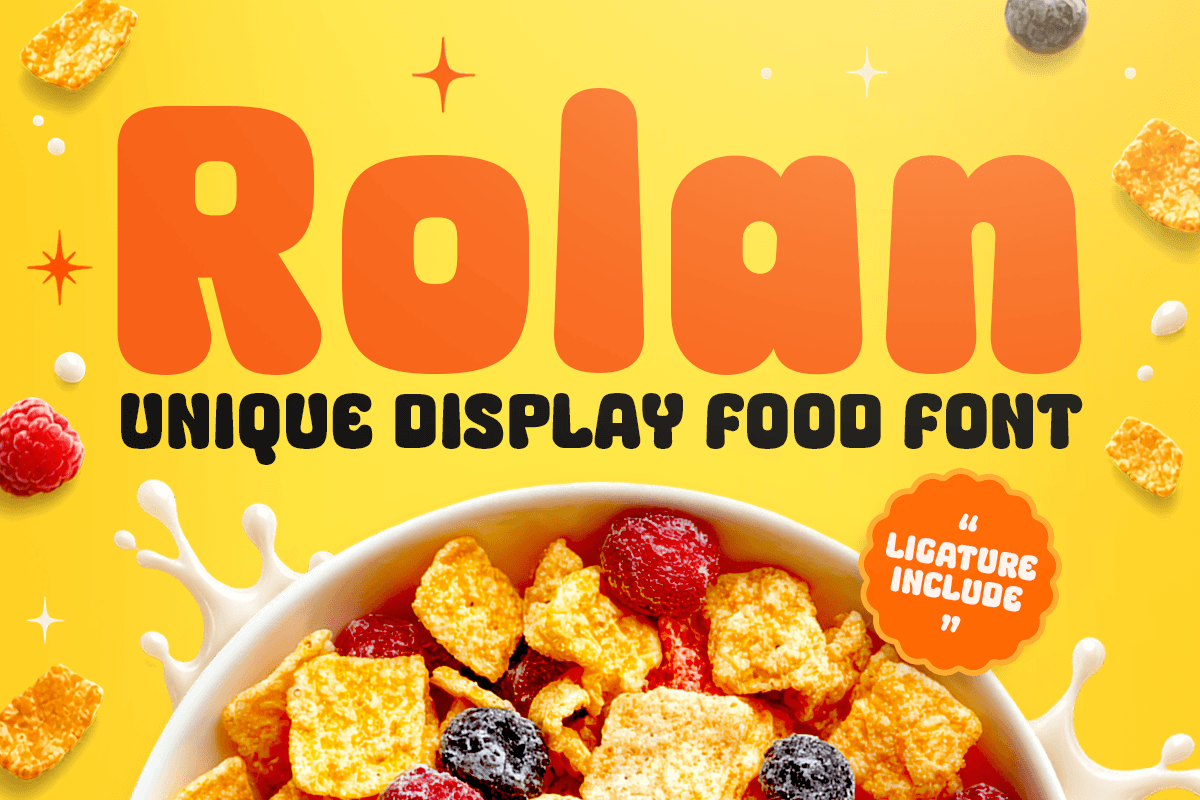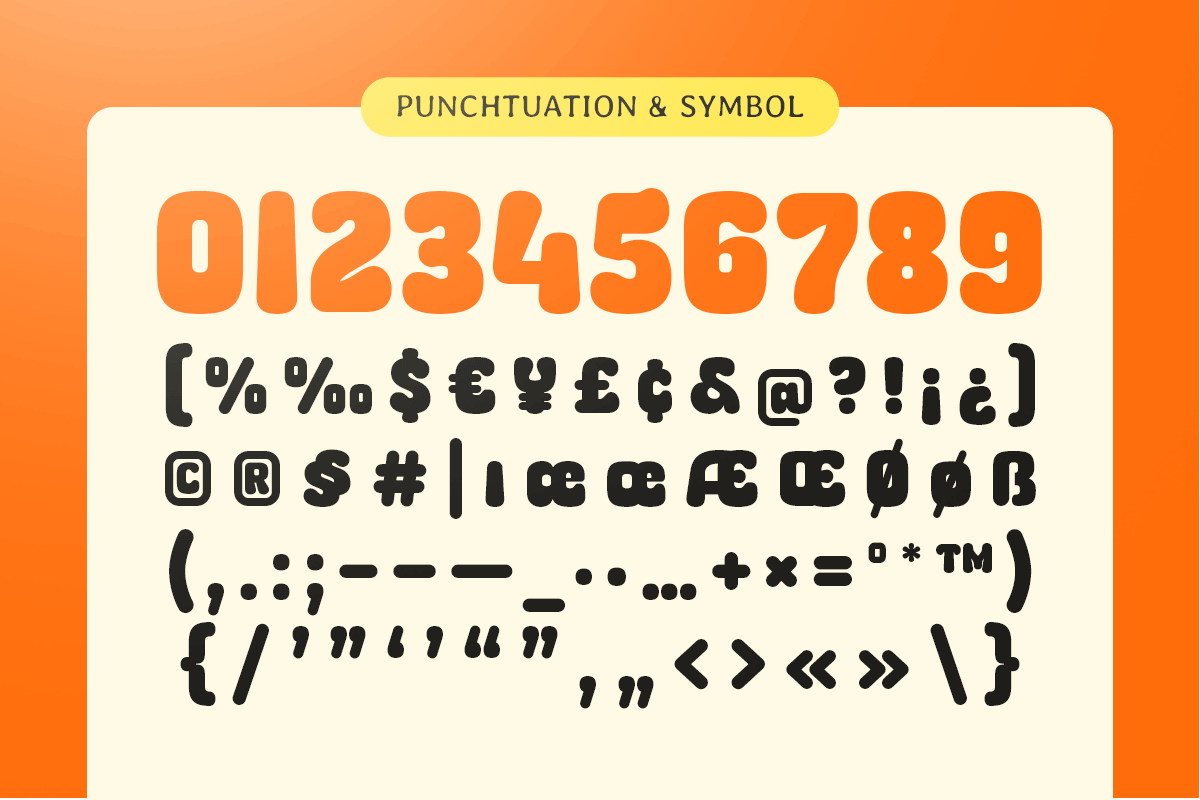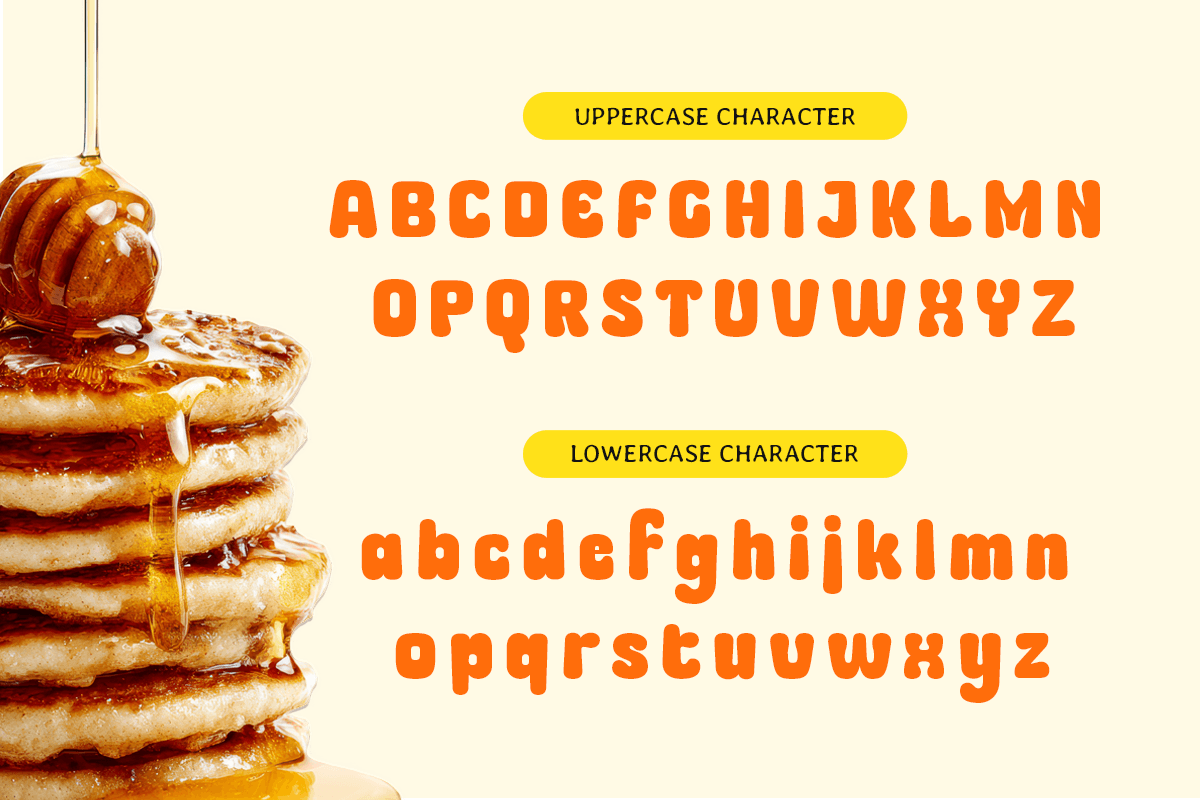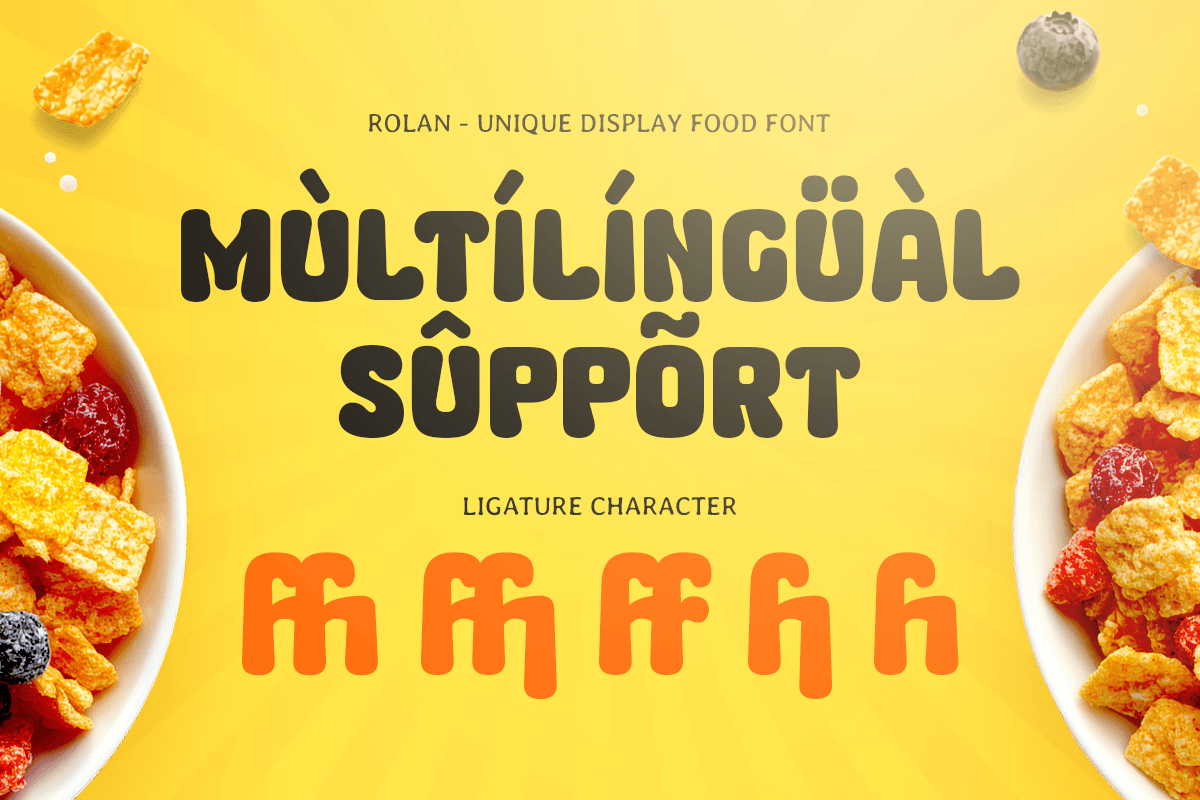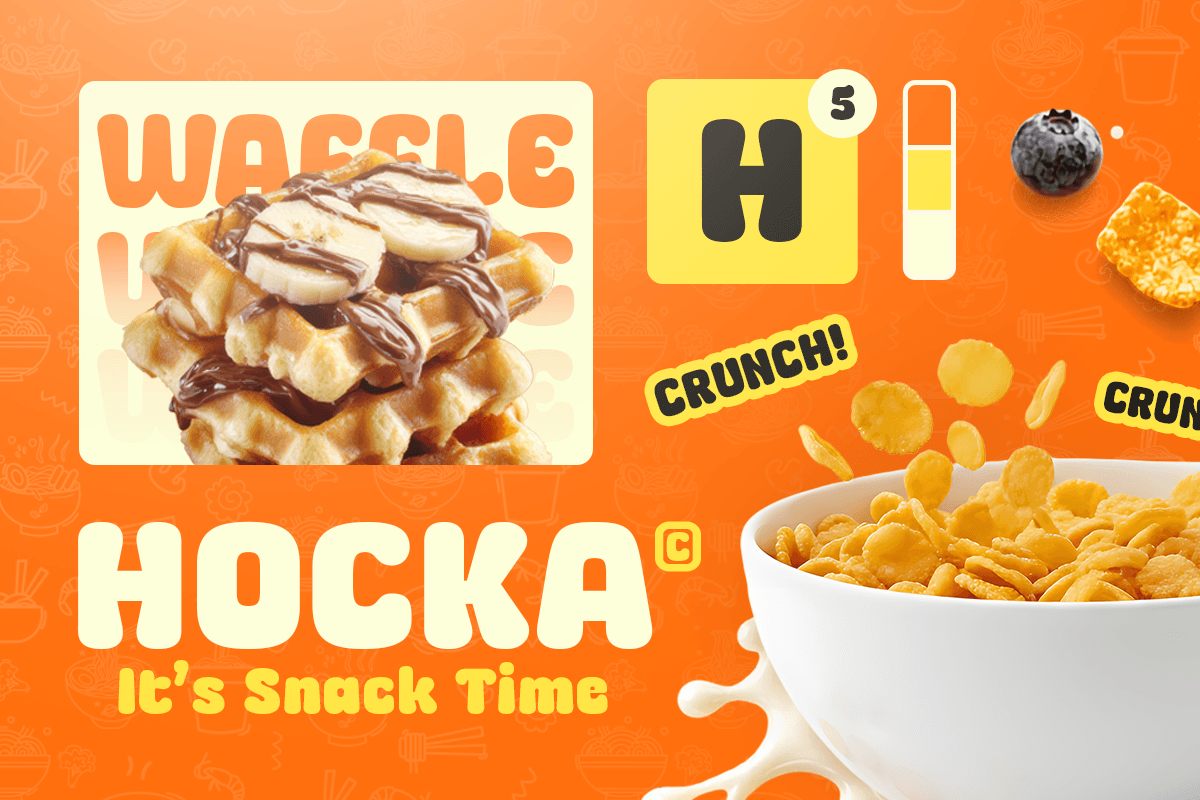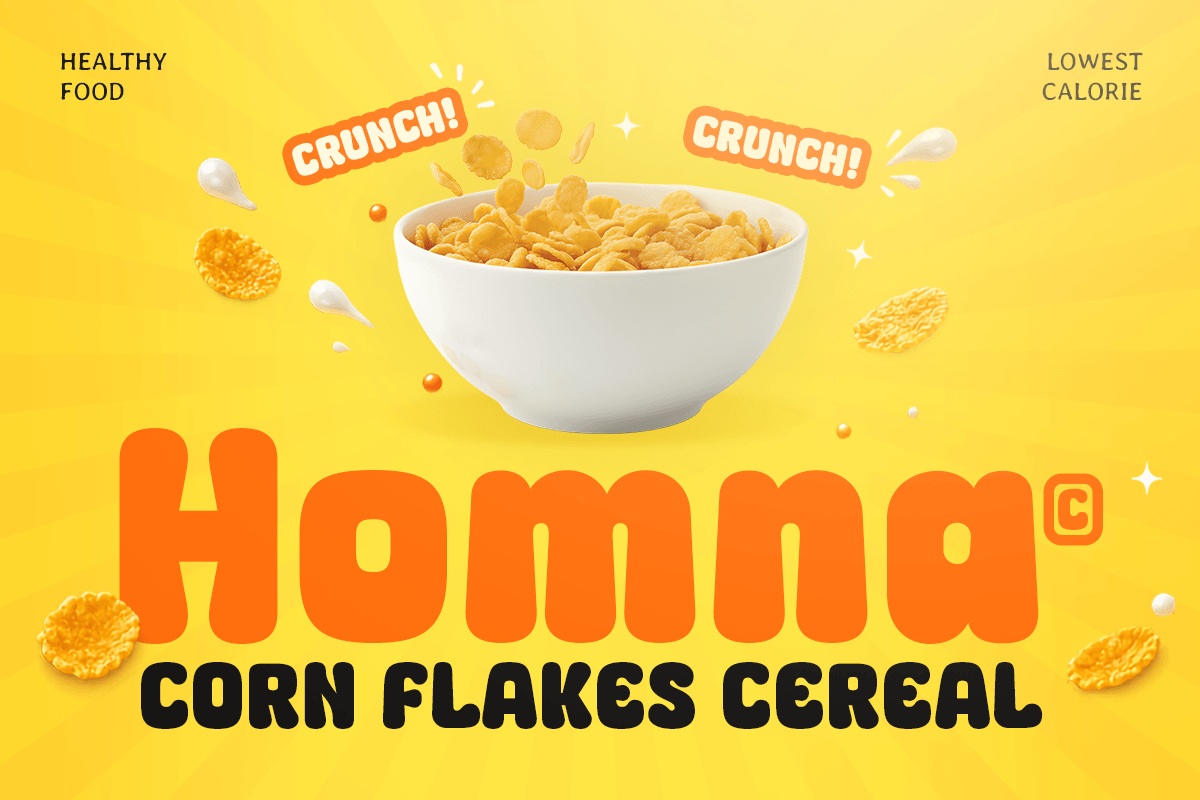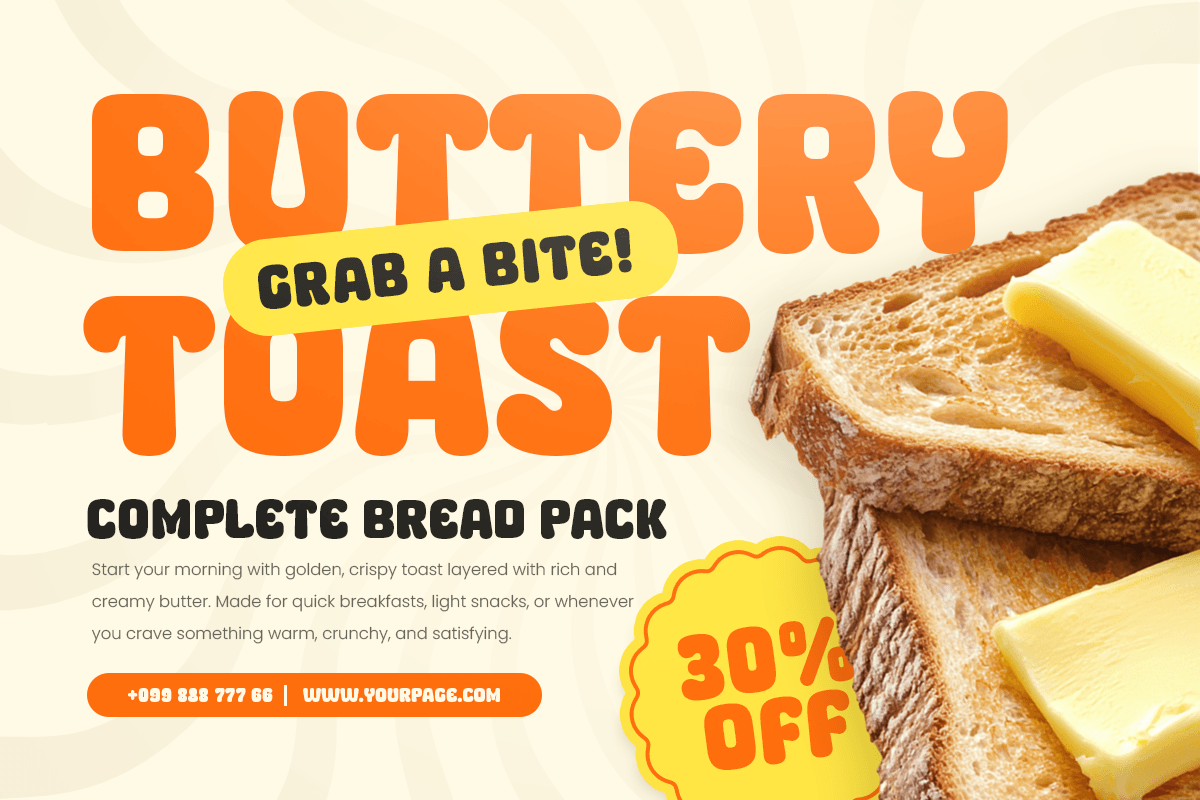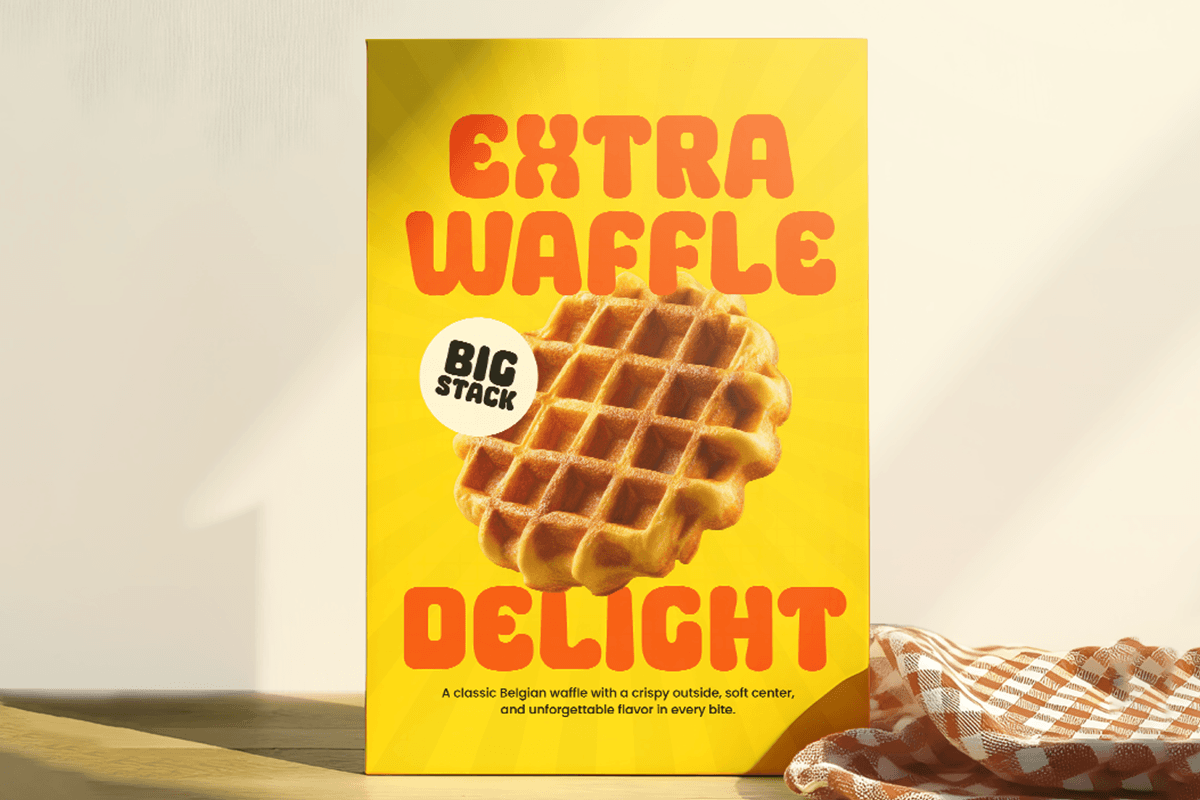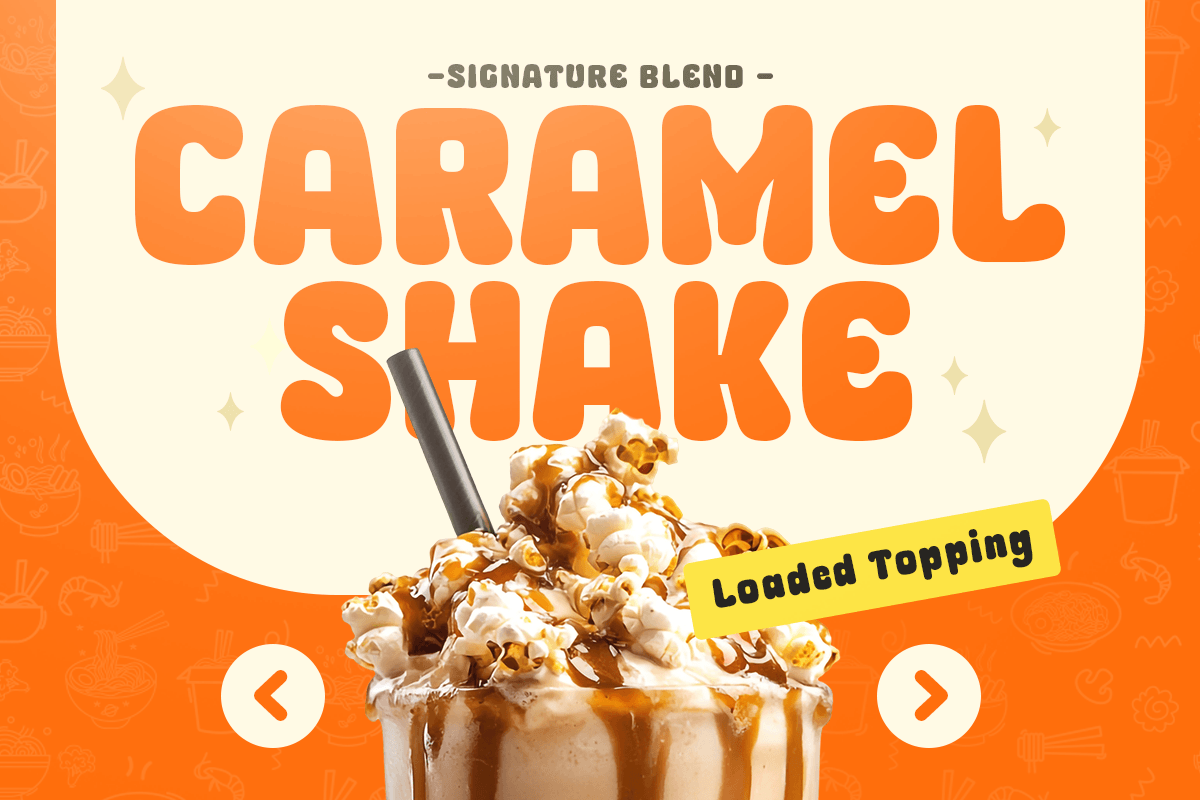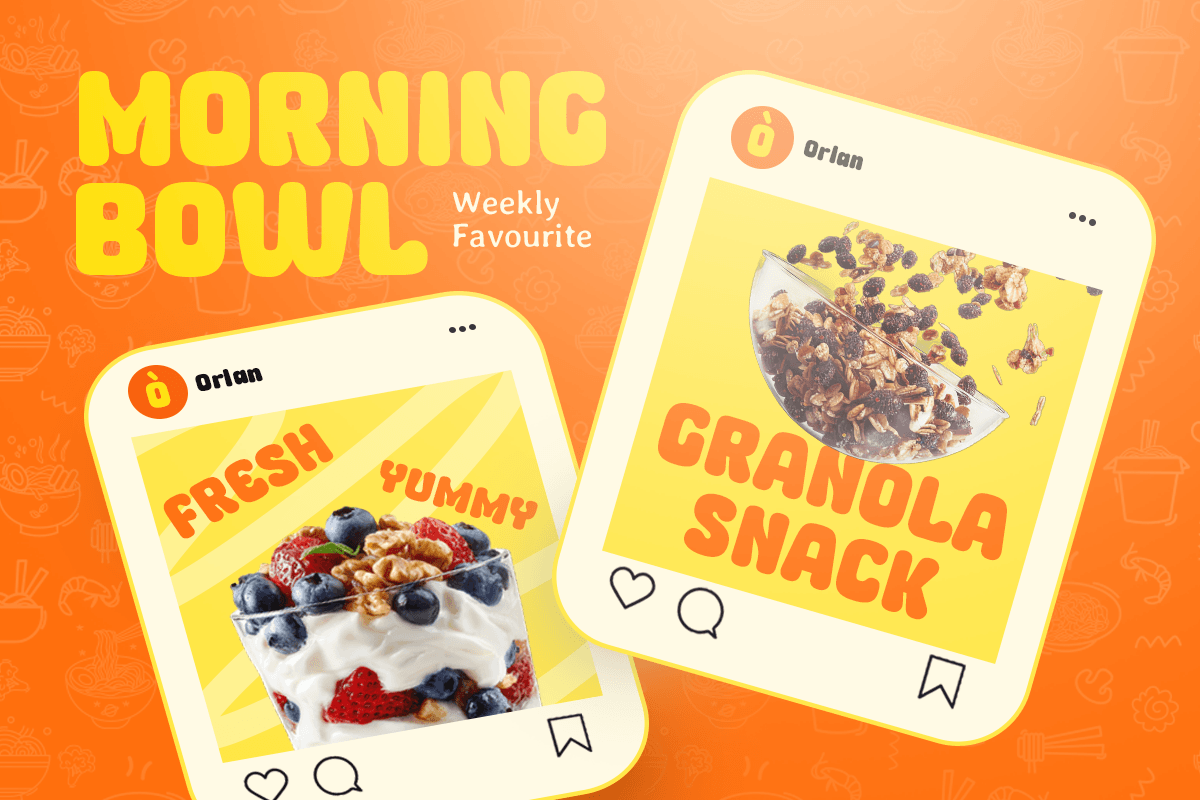
Rolan – Food Logo Font
Rolan is a food logo font designed to bring a warm, appetizing, and memorable personality to culinary brands. With its bold character and friendly visual style, Rolan creates a strong identity for food businesses, cafes, restaurants, and creative packaging projects.
Perfect for food logos, menu designs, product labels, packaging, signage, and social media branding, Rolan helps your designs stand out with a unique and inviting appearance. Its expressive letterforms are made to capture attention while maintaining a clean and professional look.
Whether you are creating a brand identity for a bakery, coffee shop, snack product, street food business, or modern restaurant, Rolan delivers a tasty and approachable feel that connects with customers across digital and print applications.
Rolan – Food Logo Font Features
- Bold and friendly food-inspired letterforms
- Perfect for logos, packaging, menus, and restaurant branding
- Warm and playful style for culinary projects
- Includes uppercase, lowercase, numerals, and punctuation
- Great for print, digital, and social media designs
- Clean typography with strong visual impact
- OpenType features for creative flexibility
Multilingual Support